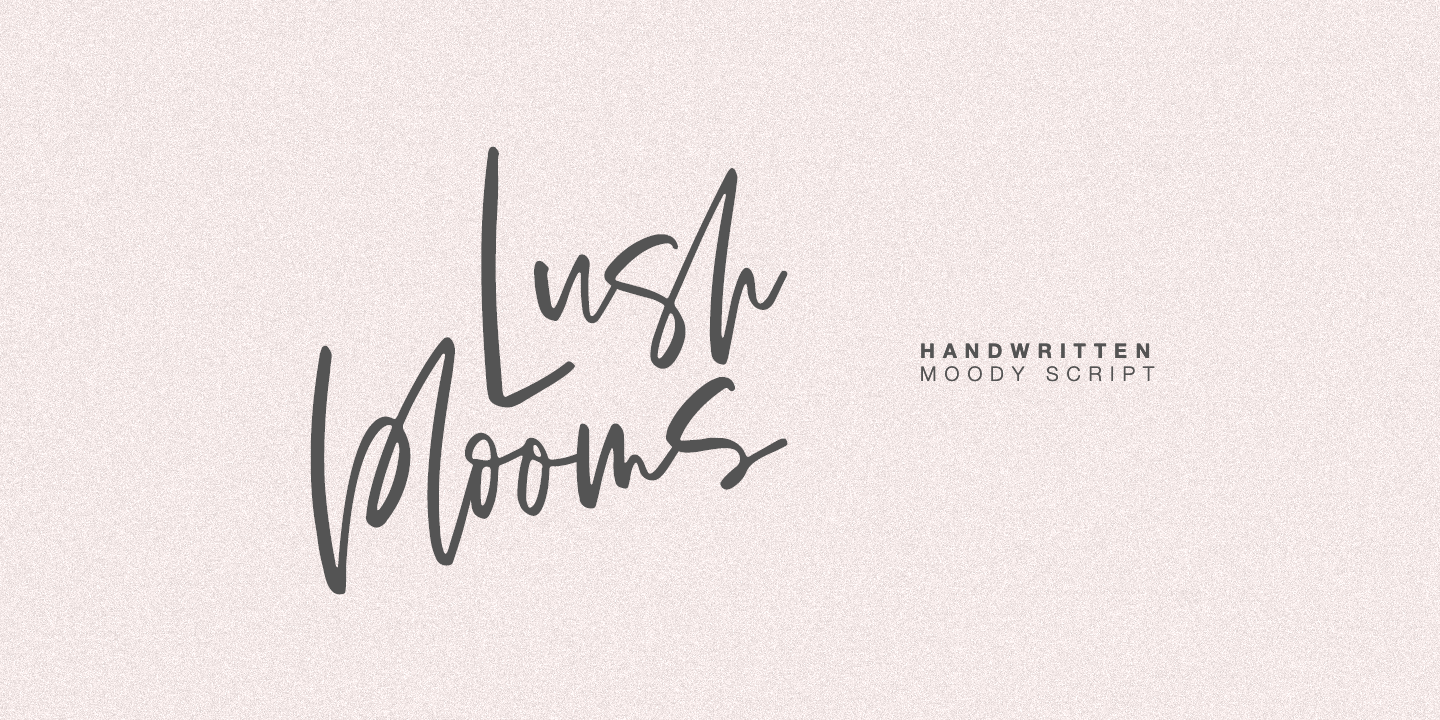
The Lush Blooms Font is a beautifully elegant and expressive script typeface, characterized by its fluid, organic lines and a delicate, handcrafted feel that evokes the natural beauty of flourishing botanical elements. Imagine its exquisite characters gracing bespoke wedding invitations with a garden theme, adding a luxurious touch to high-end floral shop branding, or creating captivating titles for romantic novels and nature-inspired lifestyle blogs. Its natural connections, subtle flourishes reminiscent of petals or vines, and elegant ligatures also make it an excellent choice for custom stationery, heartfelt greeting cards, unique branding for artisanal goods, and social media graphics that aim for a refined and organic aesthetic. Whether you're aiming for a classic, romantic look or a contemporary design infused with natural charm, Lush Blooms Font delivers with its undeniable beauty, ensuring your visuals are both inviting and truly memorable.
What makes Lush Blooms Font so exciting is its remarkable ability to infuse designs with an immediate sense of natural beauty, softness, and handcrafted artistry. In a digital world often dominated by rigid or overly utilitarian typefaces, this font offers a refreshing alternative that feels authentic and deeply personal, as if painted by hand. It evokes a feeling of growth, renewal, and elegant femininity, making your designs feel more approachable and memorable. It’s more than just a typeface; it’s a design element that can instantly convey emotion and sophistication, allowing designers to create work that feels more artisanal and less mass-produced. Its versatility in maintaining legibility while exuding grace makes it a highly sought-after tool for designers aiming for a distinct and impactful presence.
The Lush Blooms Font family is typically structured to offer a thoughtful range of variations to enhance its usability and artistic potential. While the primary Lush Blooms Regular script provides that distinctive handwritten look, you might find companion styles such as a slightly bolder Lush Blooms Bold for emphasis, or various Lush Blooms Swashes and ligatures that allow for even greater customization and natural flow between letters. Script fonts of this caliber often come with extensive OpenType features, including stylistic alternates, contextual alternates, and multiple ending forms for each letter, ensuring truly organic and beautiful connections that mimic authentic penmanship. These diverse family members provide designers with the flexibility to create cohesive and sophisticated layouts that maintain the font's unique charm while offering practical solutions for various design needs.